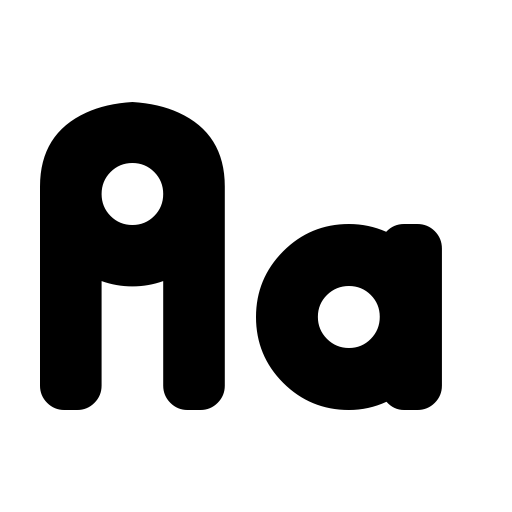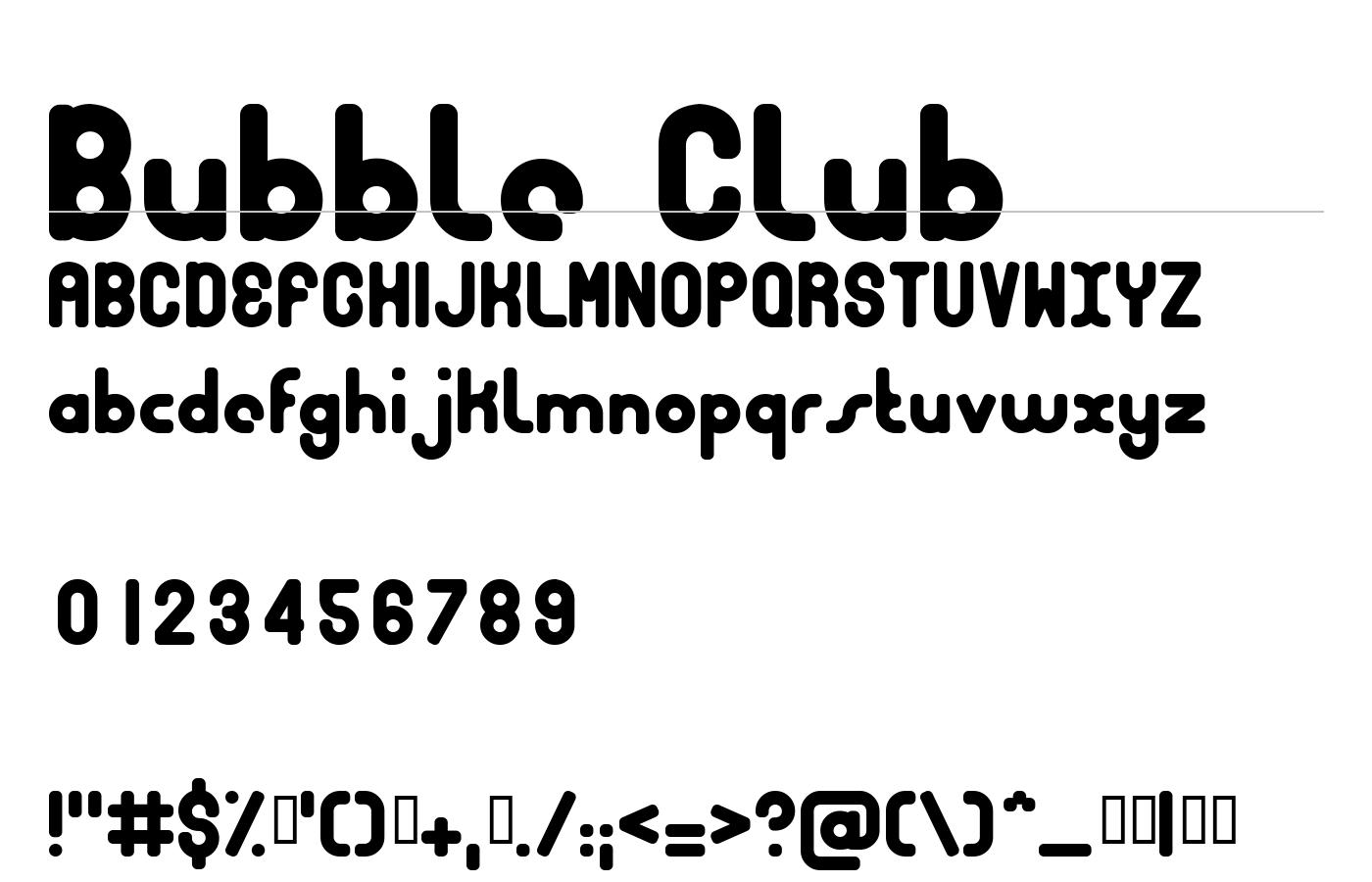
Bubble Club is a bold, rounded sans-serif font with a playful and friendly vibe, featuring thick, uniform strokes and smooth curves that give it a bubbly, approachable appearance. Its unique letterforms, such as single-story 'a' and distinctive lowercase 'r,' make it perfect for informal branding, children’s materials, or any design seeking a modern yet fun touch. This font works well in headlines, logos, and packaging where a casual, engaging personality is desired.
Bubble Club Font